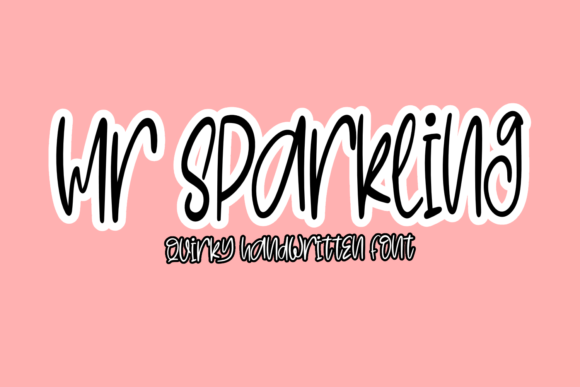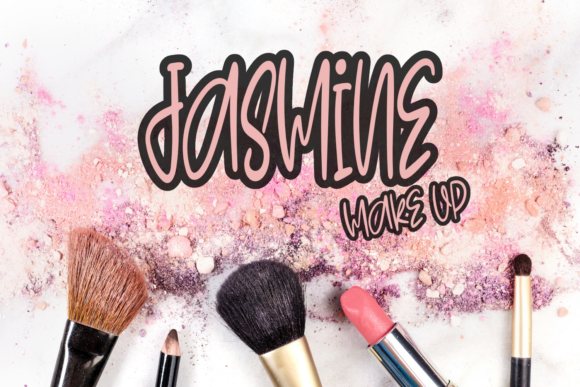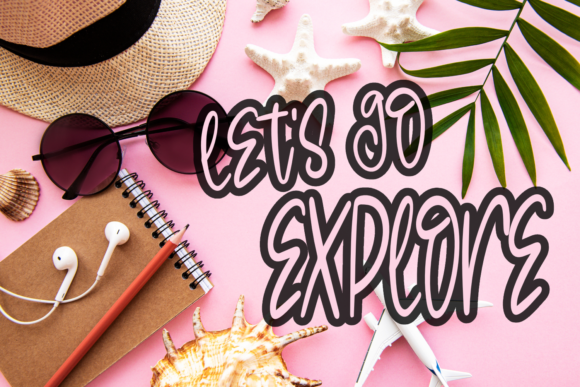
About Mr Sparkling Font
Mr Sparkling is a fun and quirky handwritten font. Its flexibility and neat style will brighten up each of your designs. Have fun with this cool font and explore its endless variations.